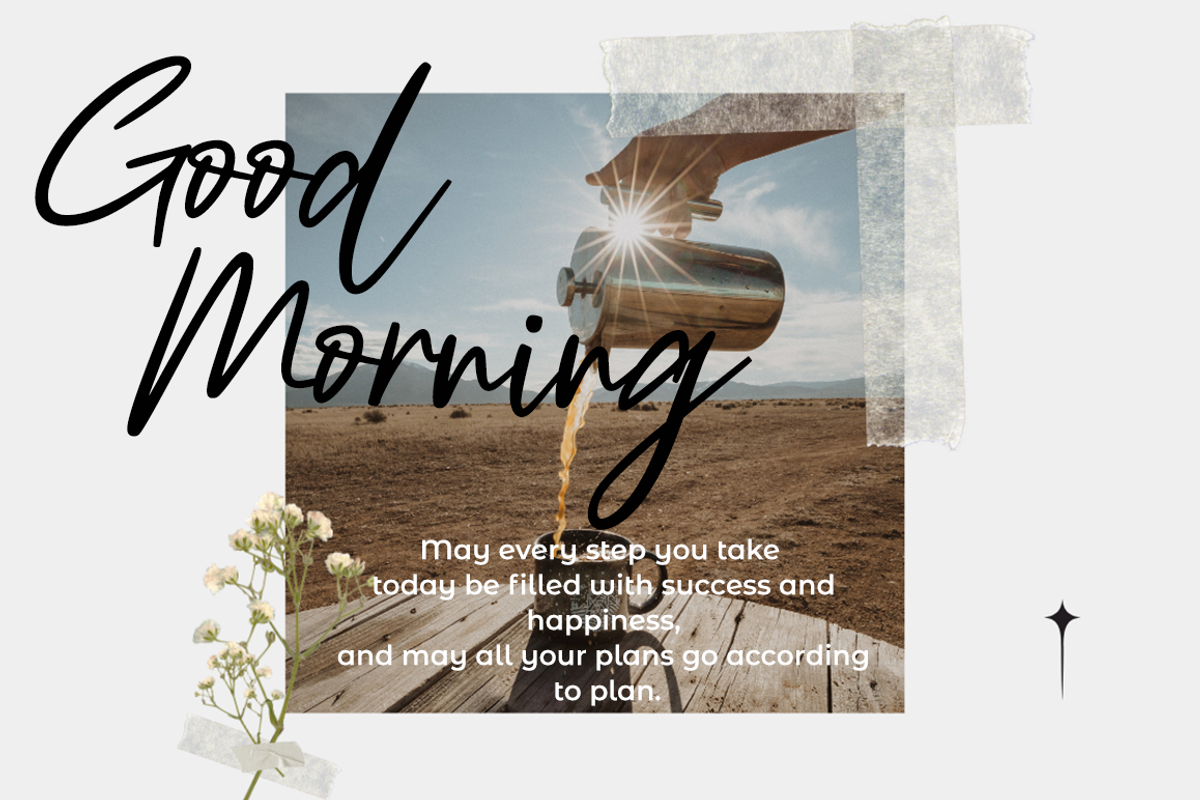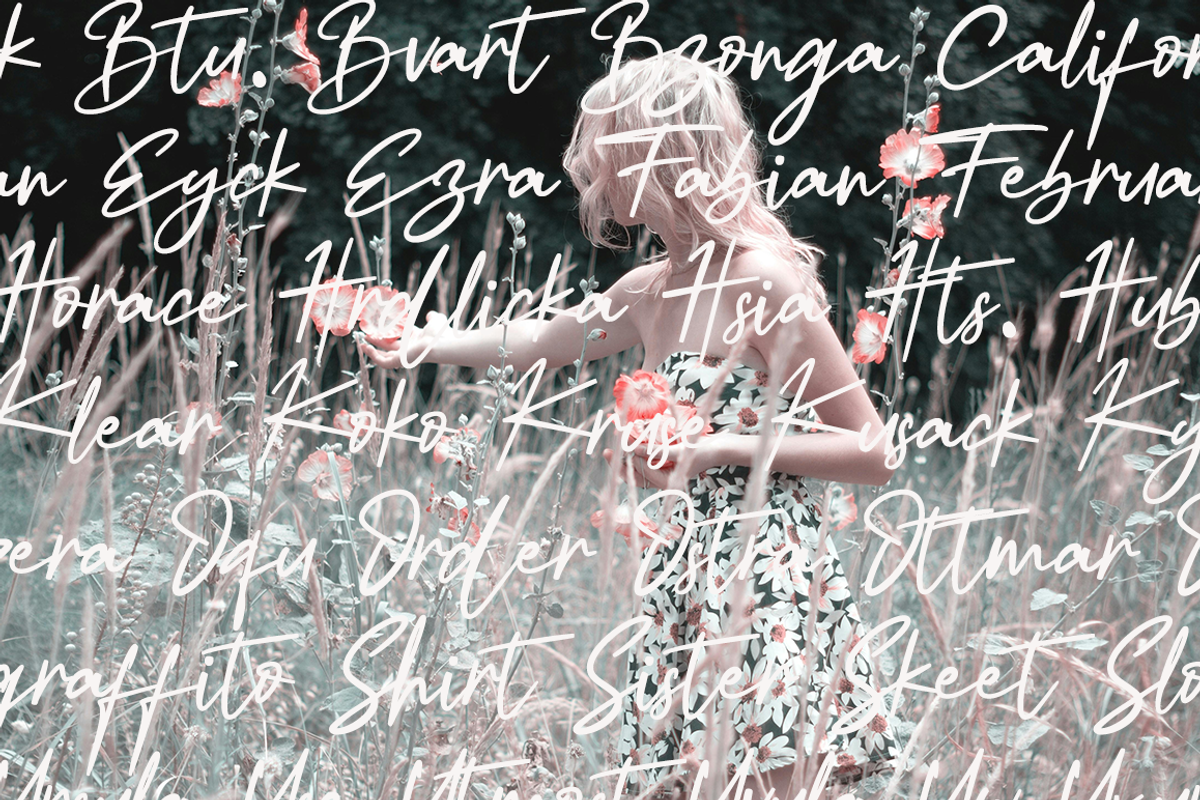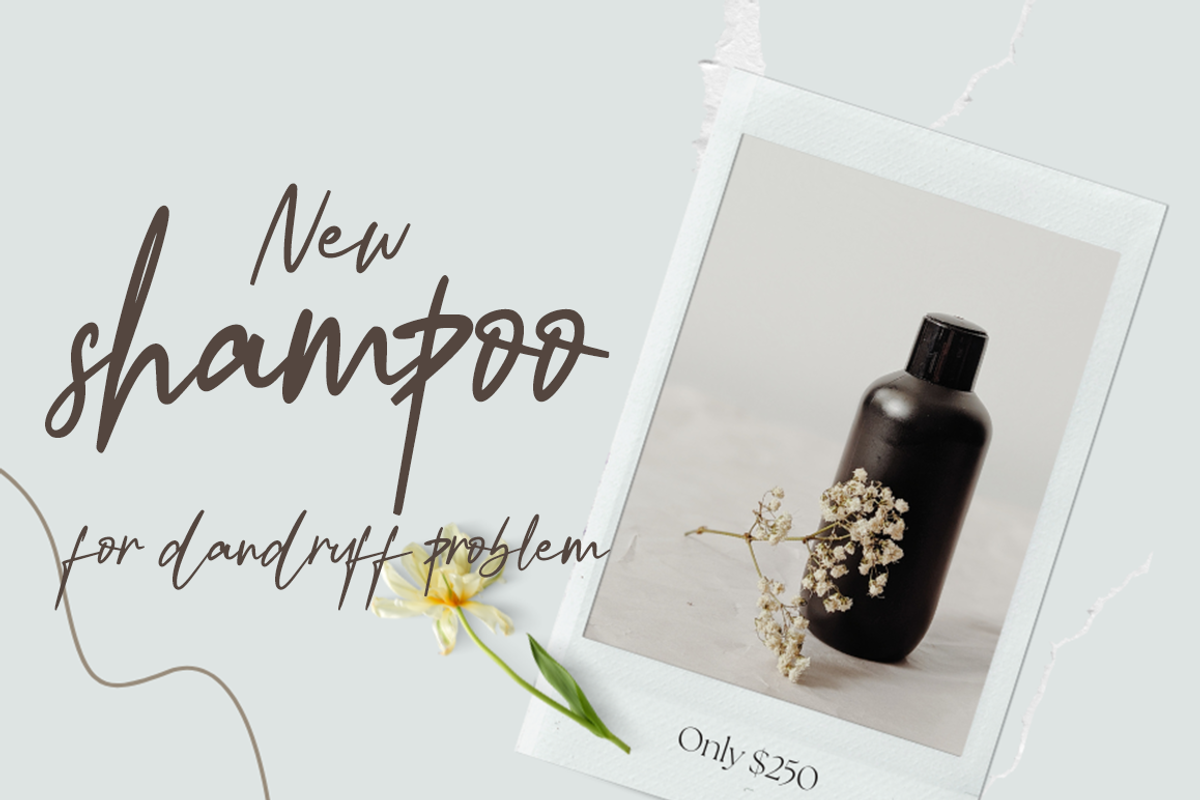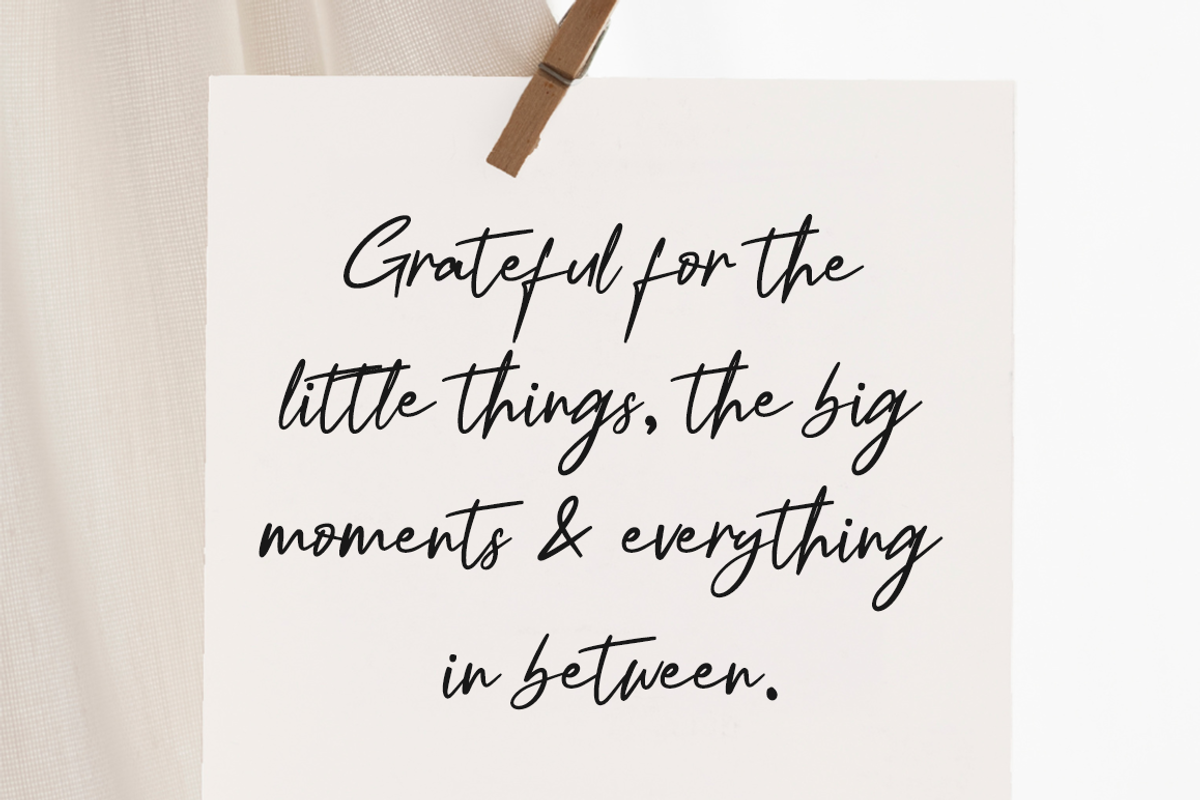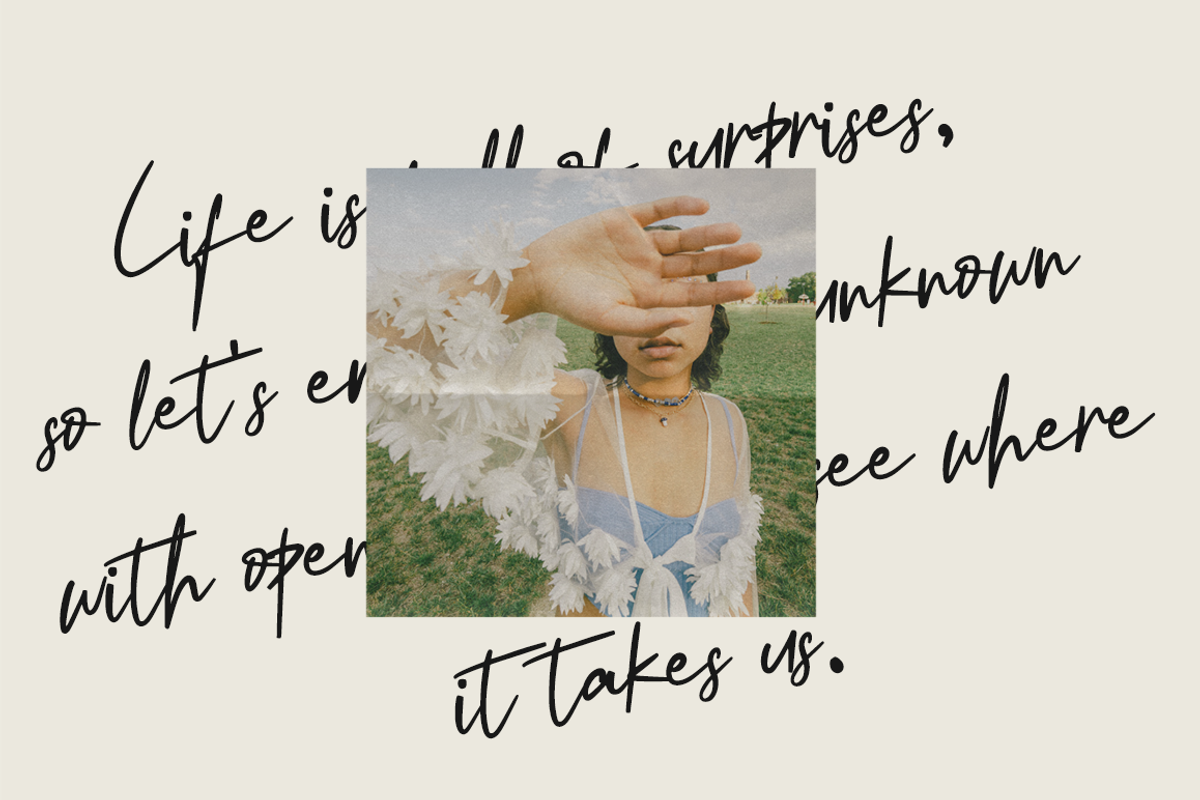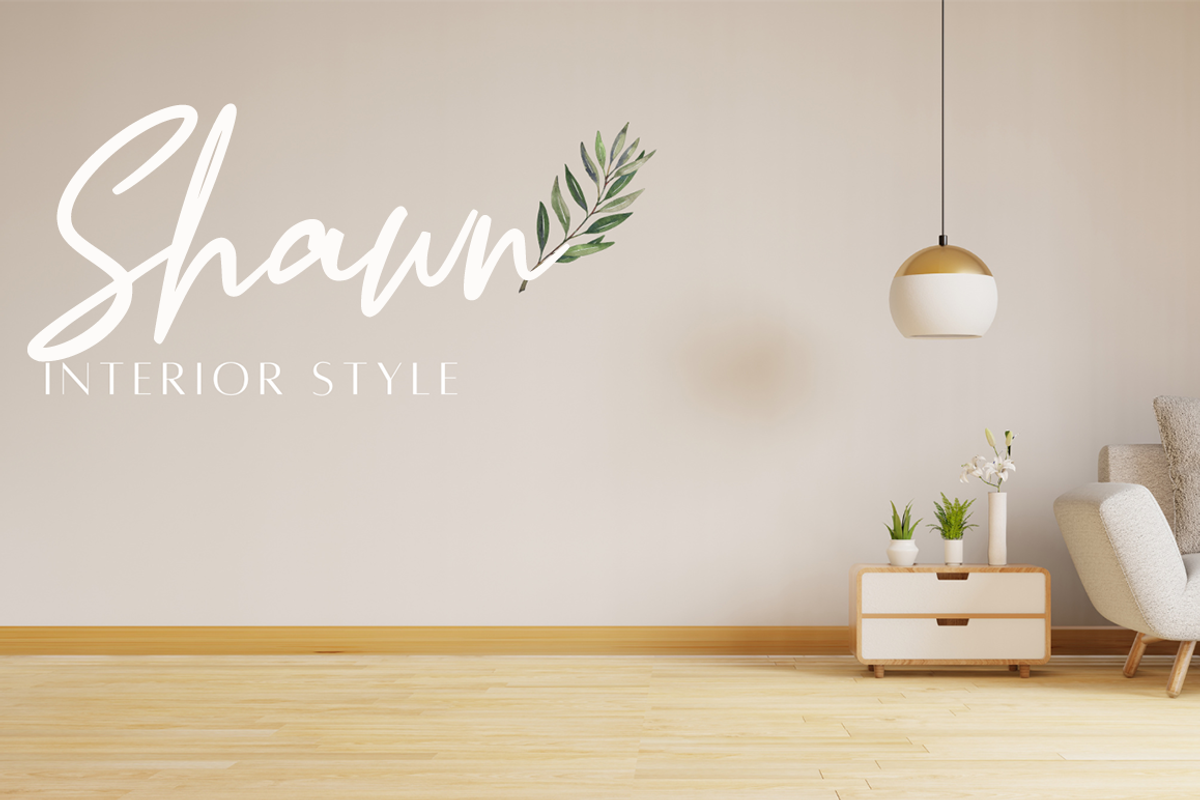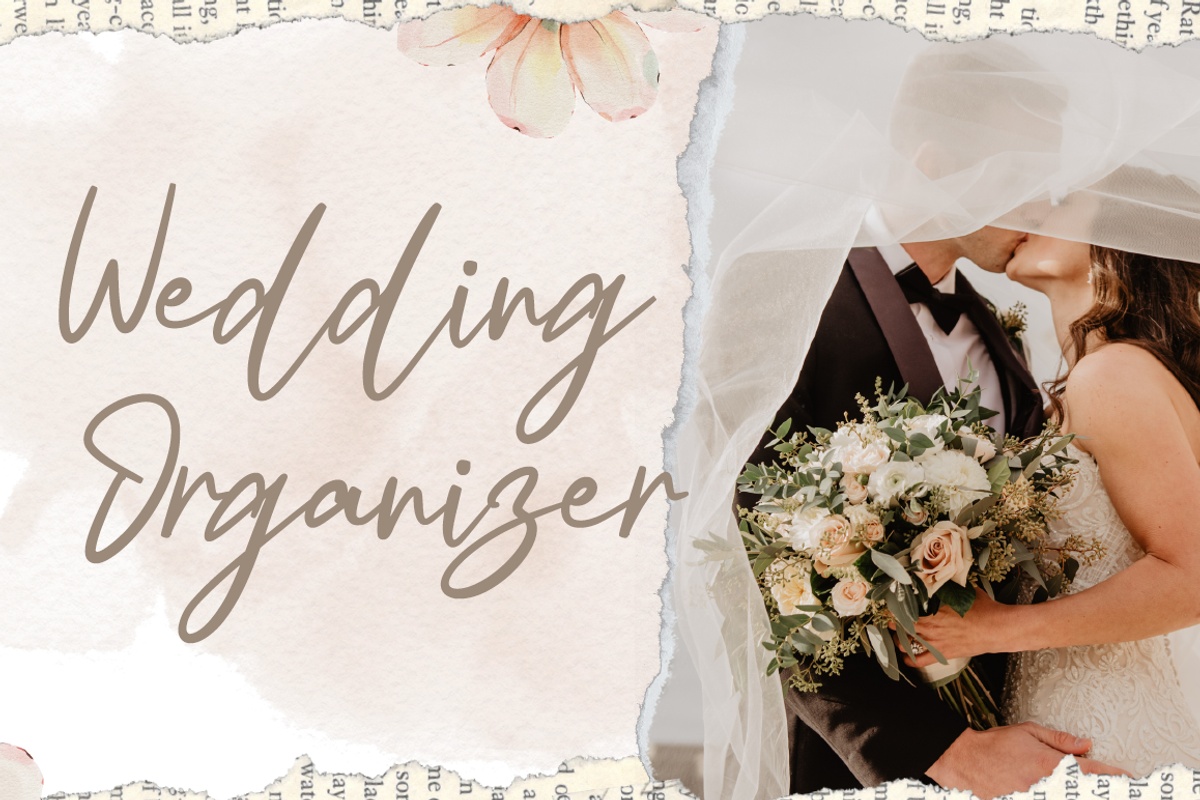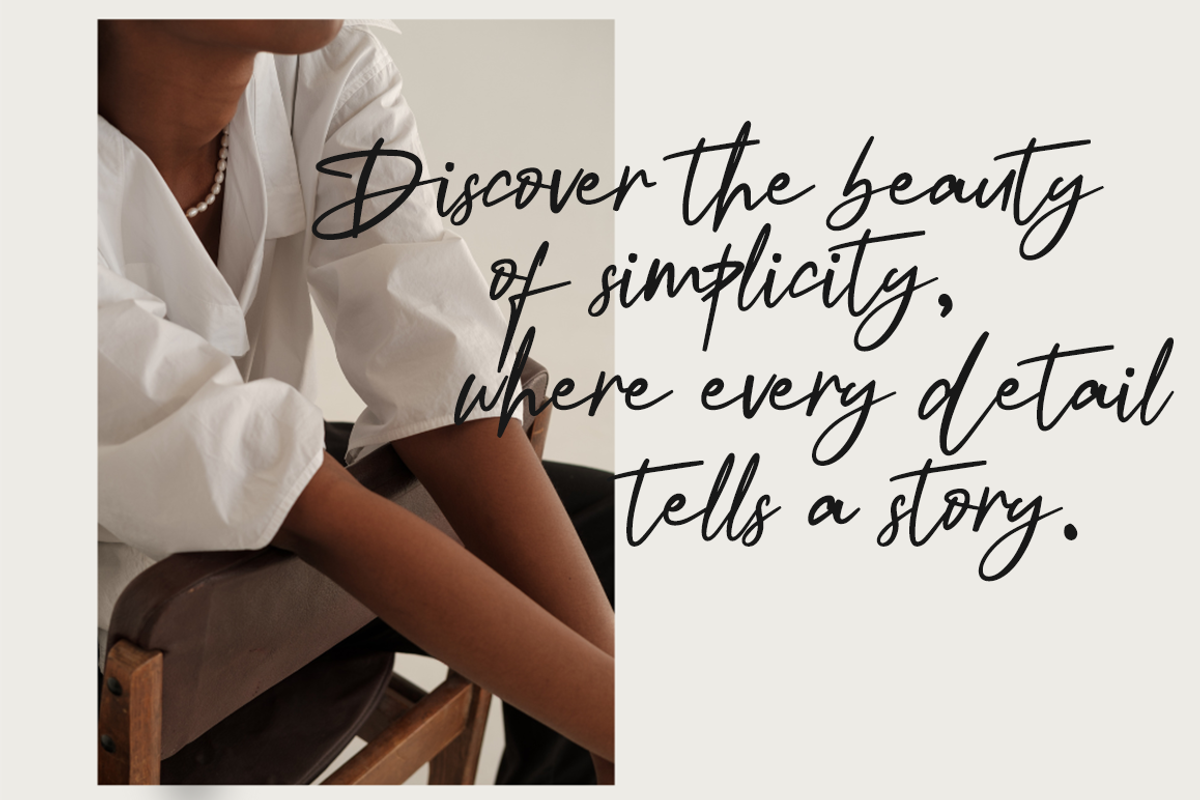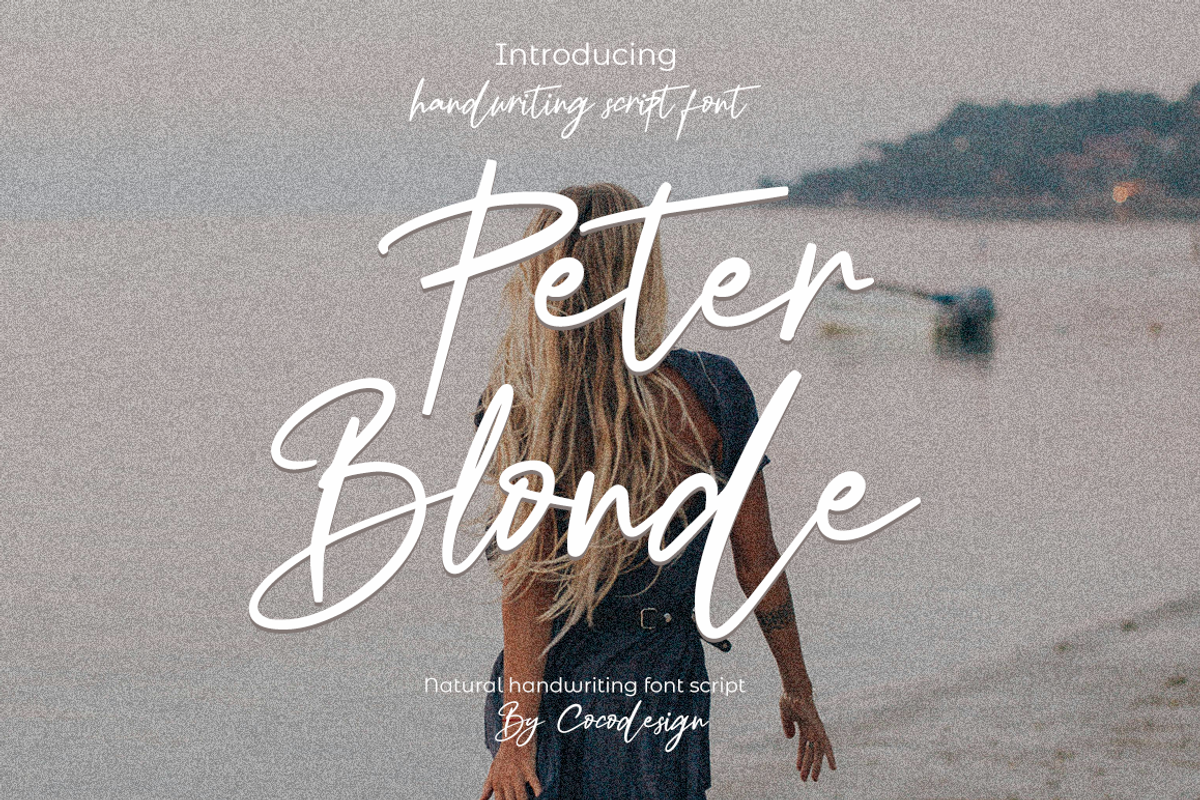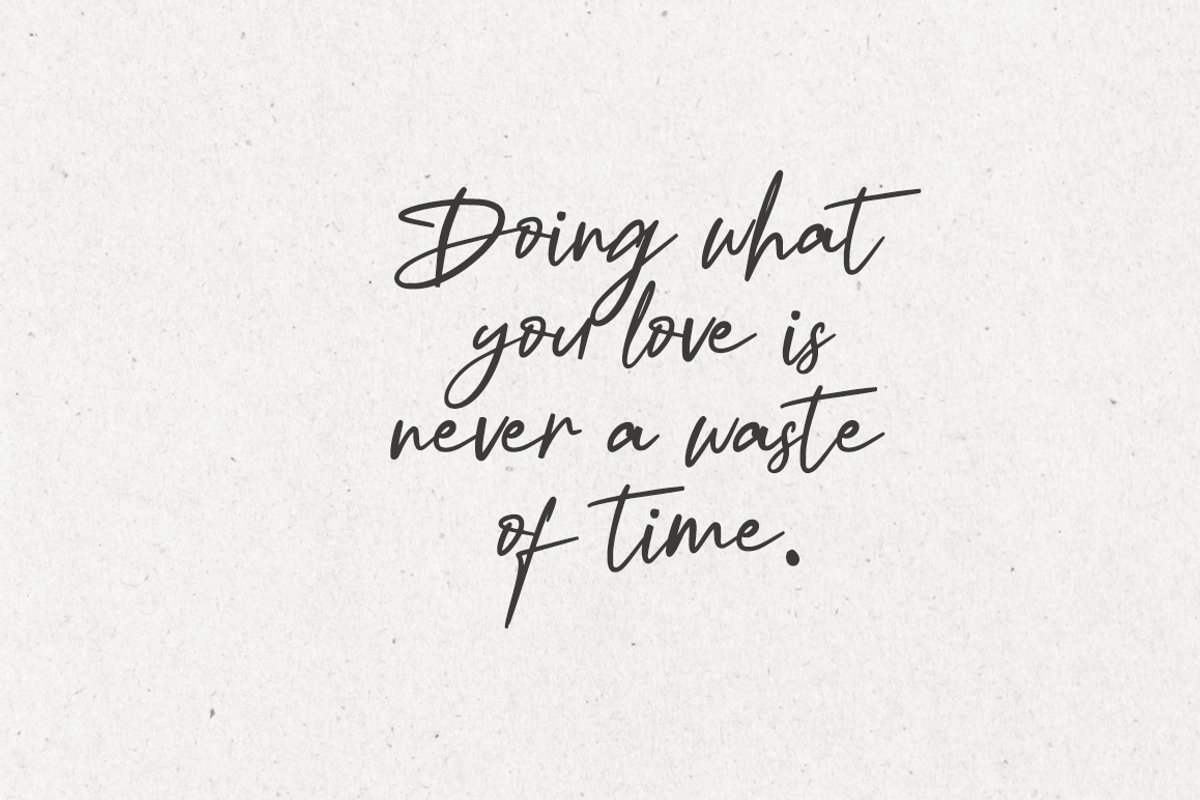
Peter Blonde
Introducing Peter Blonde, a fluid and natural handwritten font that resembles everyday handwriting while maintaining a refined aesthetic quality. Simple yet elegant, Peter Blonde is a great choice for a variety of creative tools.